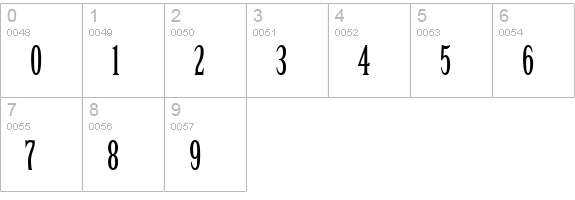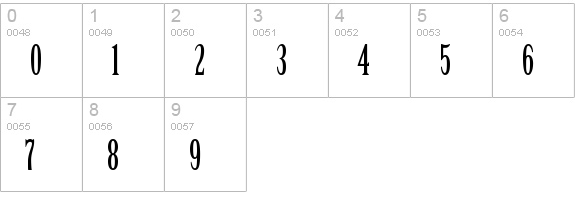
Introducing Sentinal SSi, a remarkable font that effortlessly combines elegance, sophistication, and a touch of modernity. Crafted with meticulous attention to detail, this font is designed to captivate and engage its audience, making it perfect for a wide range of creative projects. The Sentinal SSi font boasts an exceptional versatility that ensures its suitability for various purposes. From professional documents to eye-catching advertisements, from sleek logos to stunning website designs, this font effortlessly adapts to any context, adding a touch of class and distinction. What sets Sentinal SSi apart is not only its impeccable design, but also its accessibility. This remarkable font is available for free, allowing designers, creatives, and enthusiasts alike to enjoy its unparalleled beauty without any barriers. To download Sentinal SSi, simply visit FontsMarket.com, where you can easily access this font and explore a vast array of other exceptional typefaces. With its well-balanced letterforms and exquisite curves, Sentinal SSi delivers a timeless elegance that is impossible to ignore. Its clean lines and sophisticated style create a harmonious blend of classic and contemporary aesthetics, making it a true standout in the realm of typography. Whether you are designing a glamorous fashion magazine, an elegant wedding invitation, or a prestigious brand identity, Sentinal SSi is the perfect choice to elevate your project to new heights. Its versatility and legibility ensure that your message is conveyed with utmost clarity and impact, leaving a lasting impression on your audience. Discover the power of Sentinal SSi and unleash your creativity. Download this remarkable font for free at FontsMarket.com and embark on a journey of endless possibilities. Let Sentinal SSi become your trusted companion in designing projects that demand nothing but the best.